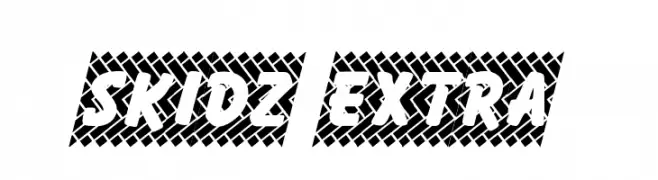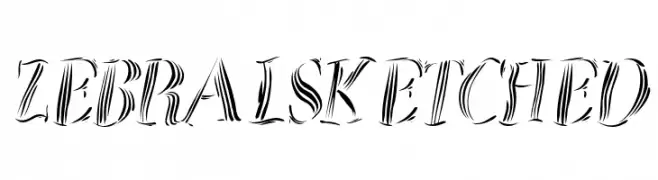
A rugged, distressed font with hand-drawn, organic characteristics.
A whimsical and playful collection of sketch-like characters and symbols.
A sketched, zebra-striped font with a dynamic and artistic style.
A bold, slanted font with a textured, dynamic style.